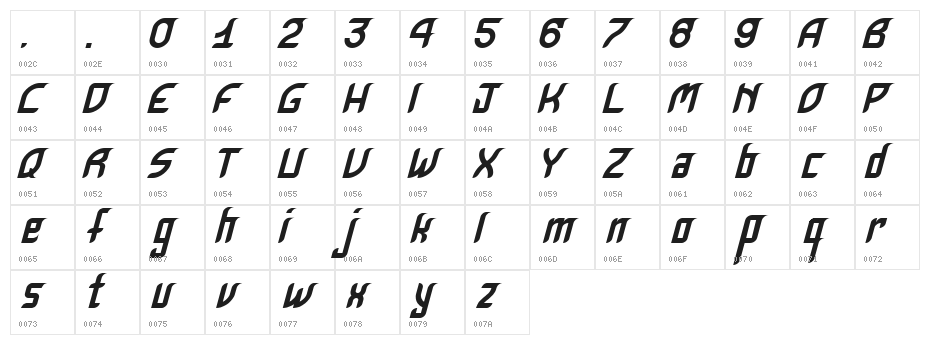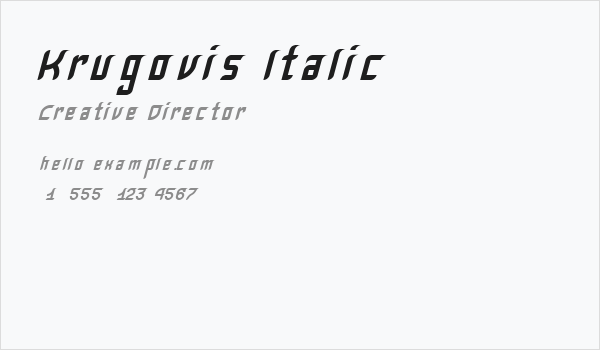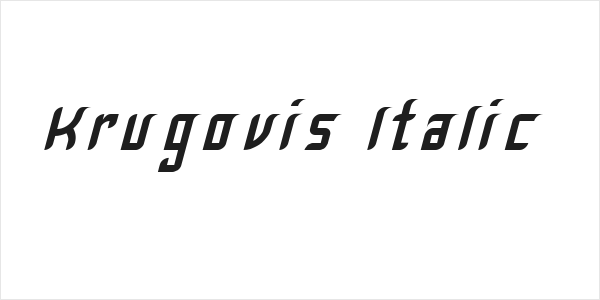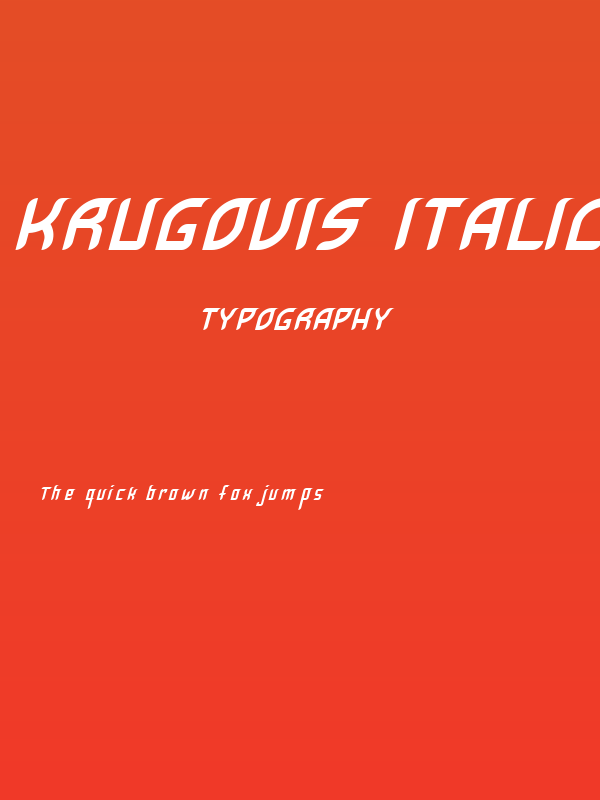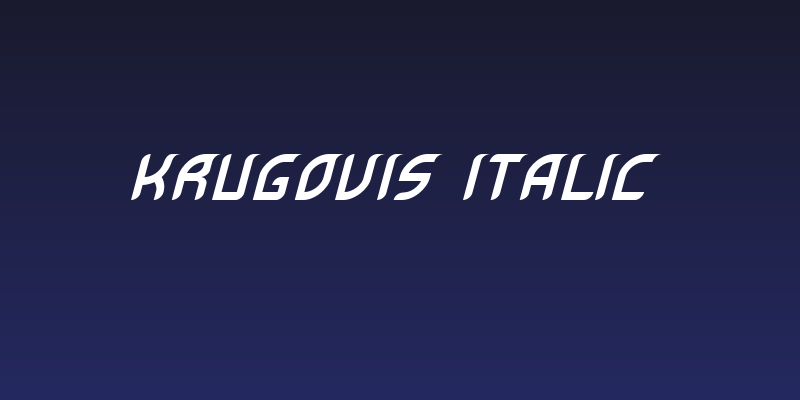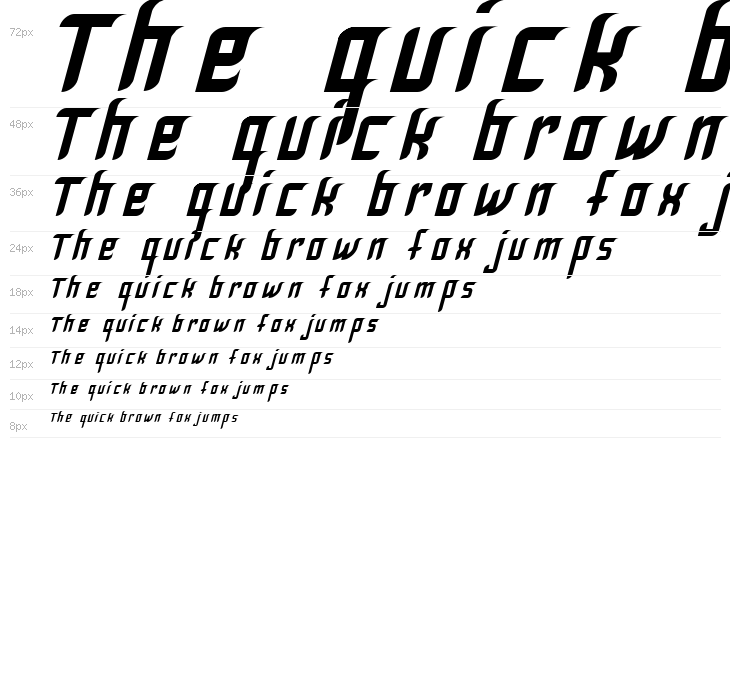
Krugovis-Italic Font
Krugovis-Italic Description
This font features a dynamic and angular design with a distinct italic slant, giving it a sense of motion and energy. The characters are bold and have a geometric structure, with sharp edges and clean lines. The uppercase letters are particularly striking, with a futuristic and modern appearance. The lowercase letters maintain the same angular style, creating a cohesive look across the typeface. The numerals are consistent with the overall design, offering a bold and clear presentation. Special characters are included, maintaining the same stylistic approach.
| Proposed Projects | Ideal for sports branding, futuristic designs, and dynamic advertising campaigns. |